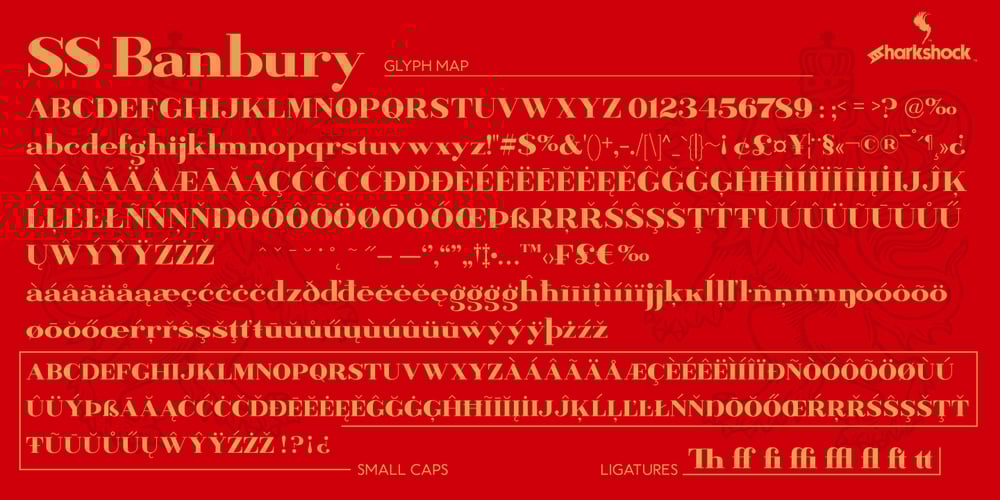
SS Banbury Font Family was designed by Dennis Ludlow and published by Sharkshock. SS Banbury contains 2 styles and family package options. Banbury is a Neo Classical display font available in two versions. Broad line weights paired with hairline serifs create a striking contrast for an elegant look. Italic lowercase characters contain more rounded letterforms and feature shaved off lower serifs. This vintage inspired family would work nicely in a luxury logo, movie poster, or pub menu. Banbury is equipped with Basic Latin, extended Latin, diacritics, punctuation, ligatures, kerning, and small caps. Please check the glyph map for all supported characters.